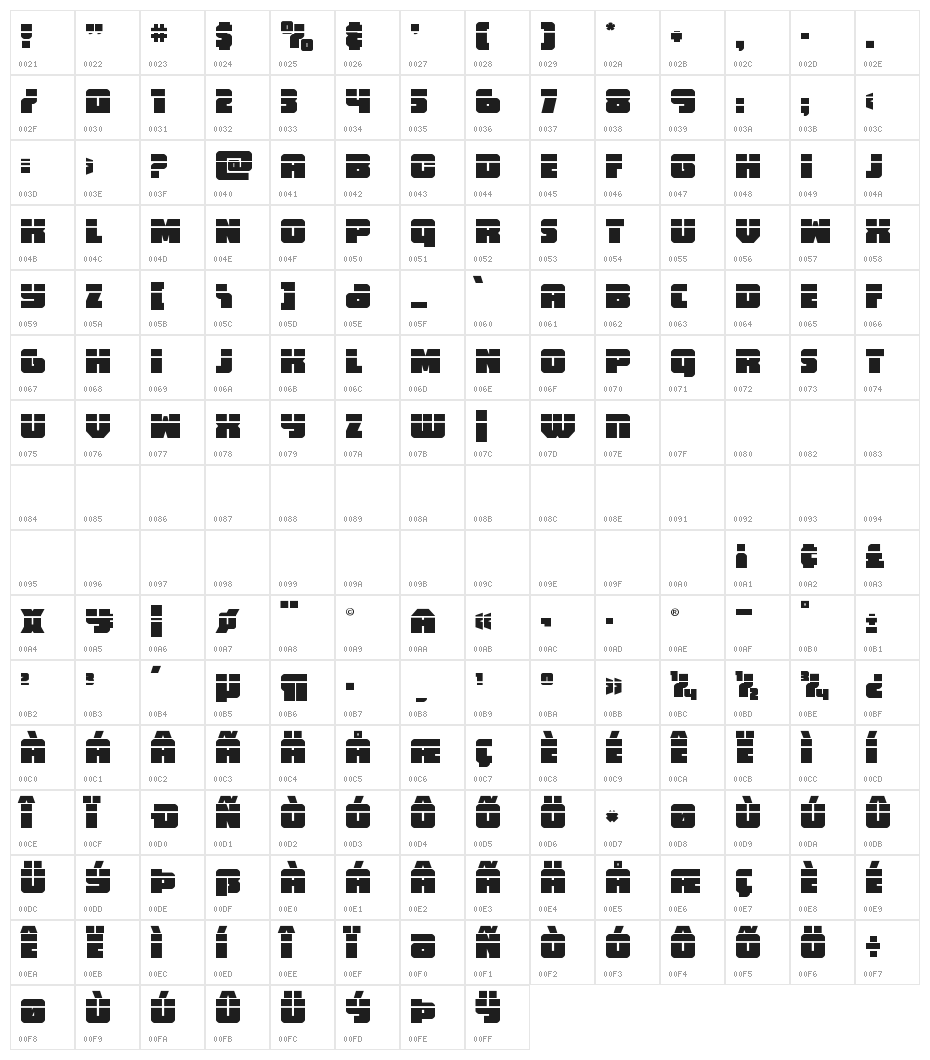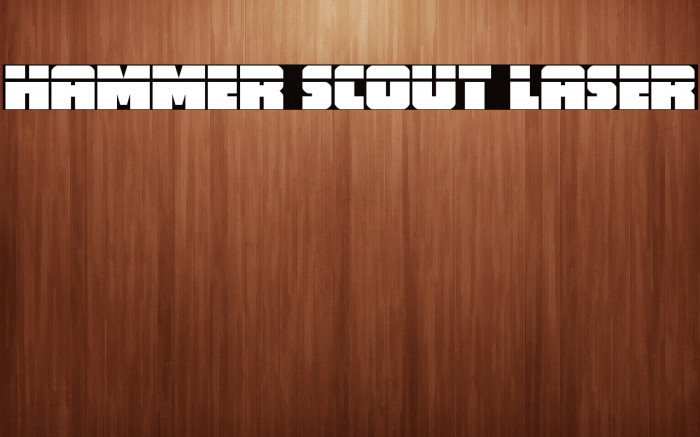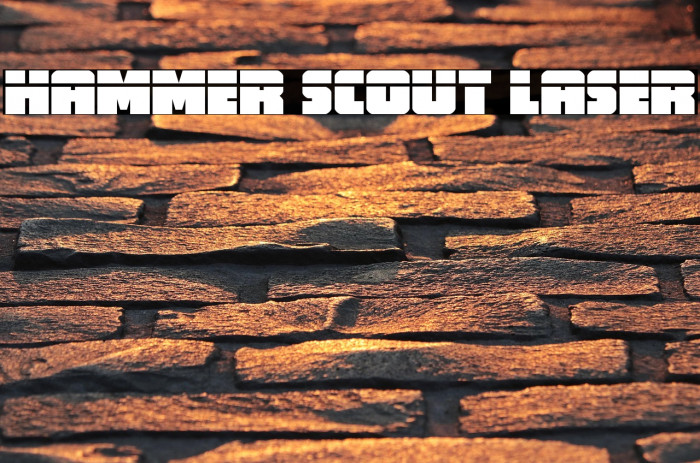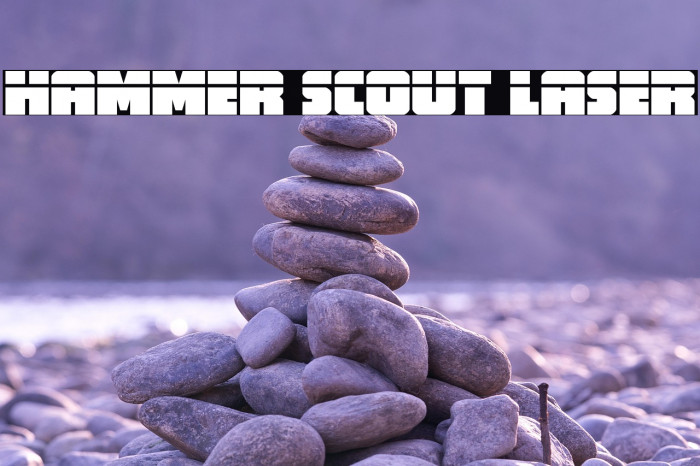
Hammer Scout Laser Font
Hammer Scout Laser Description
This bold, geometric font features a strong, industrial aesthetic with thick, blocky characters. Each letter and number is constructed with sharp angles and straight lines, creating a sense of strength and stability. The uniformity in the design gives it a cohesive look, while the boldness ensures high visibility and impact. The font's distinct style makes it suitable for projects that require a modern, robust appearance. Its unique character shapes are designed to stand out, making it ideal for attention-grabbing headlines or logos.
| Proposed Projects | Ideal for branding, logos, posters, and headlines that require a modern, impactful look. |